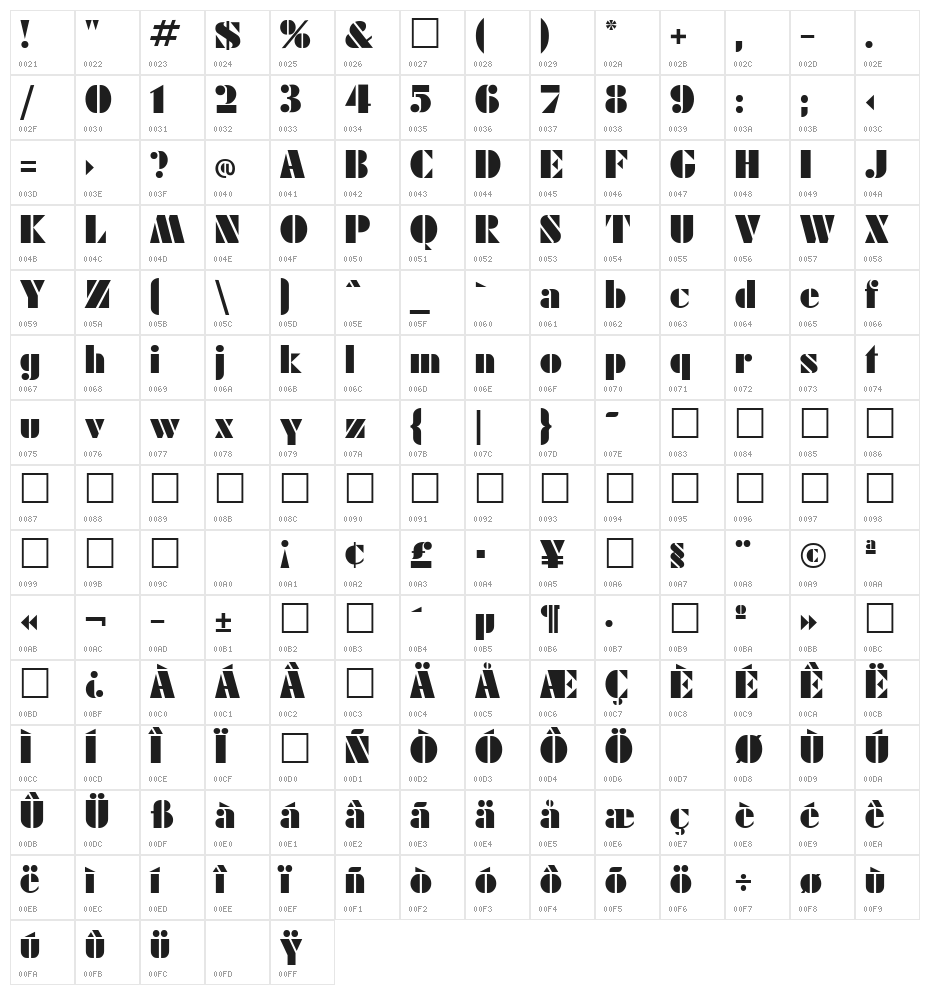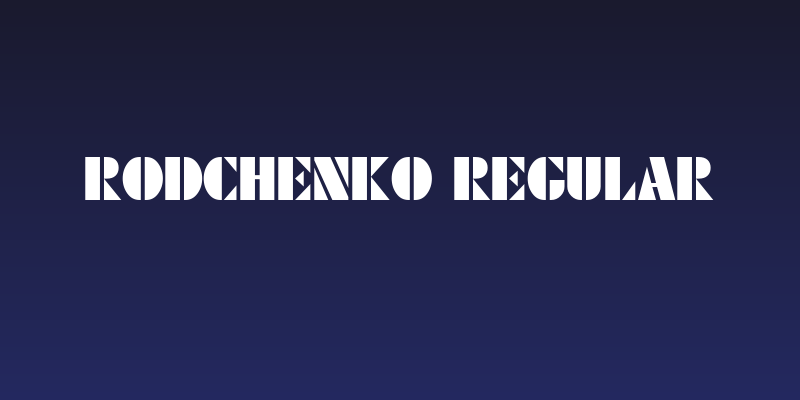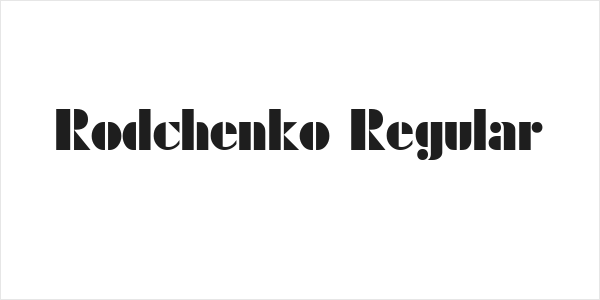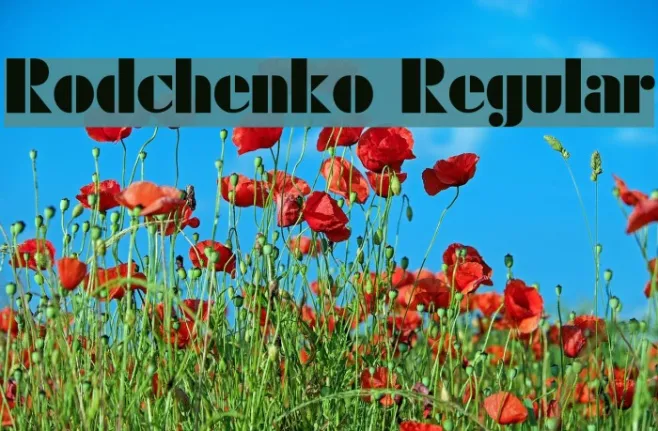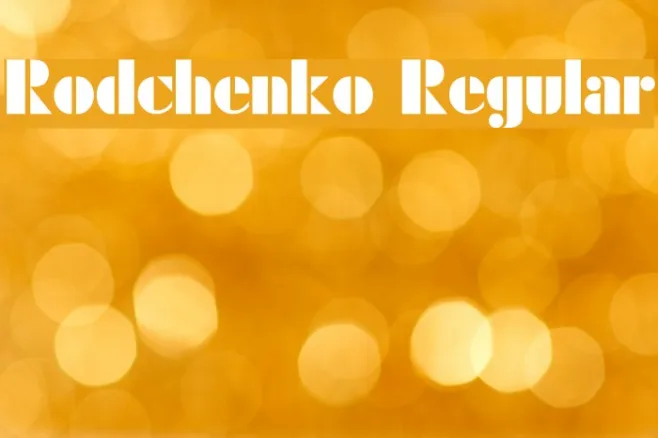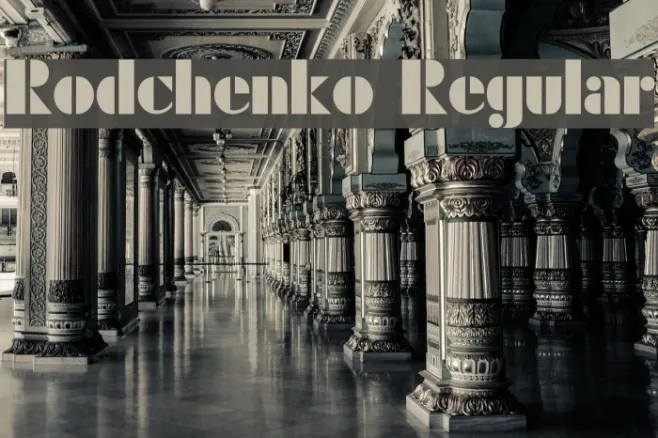
Rodchenko Regular Font
Rodchenko Regular Description
This font features a bold and geometric design, characterized by its strong, angular shapes and high contrast between thick and thin strokes. The uppercase letters are particularly striking, with sharp angles and a modern, industrial feel. The lowercase letters maintain a similar style, offering a cohesive look across different cases. The numerals and special characters are equally bold, making them stand out prominently. This font's unique style is reminiscent of constructivist design, offering a sense of movement and energy.